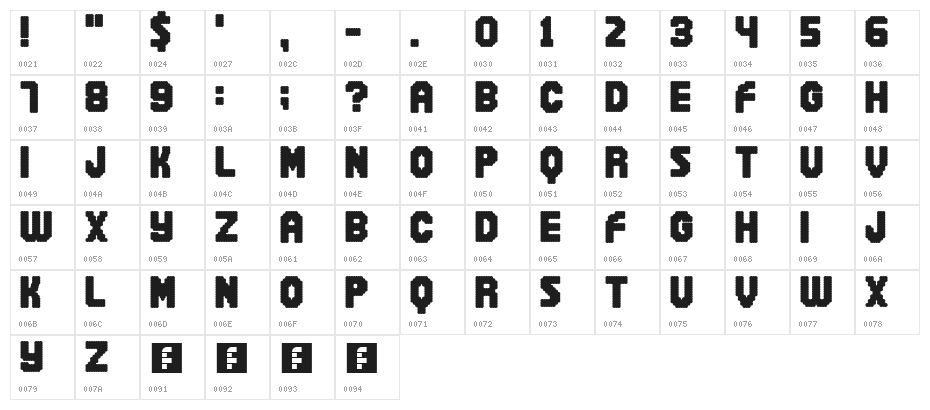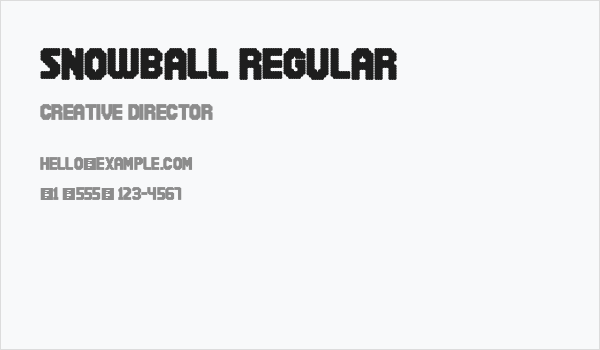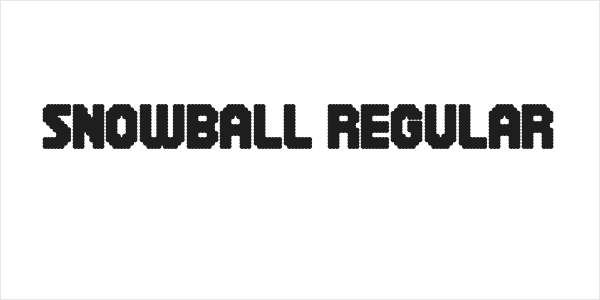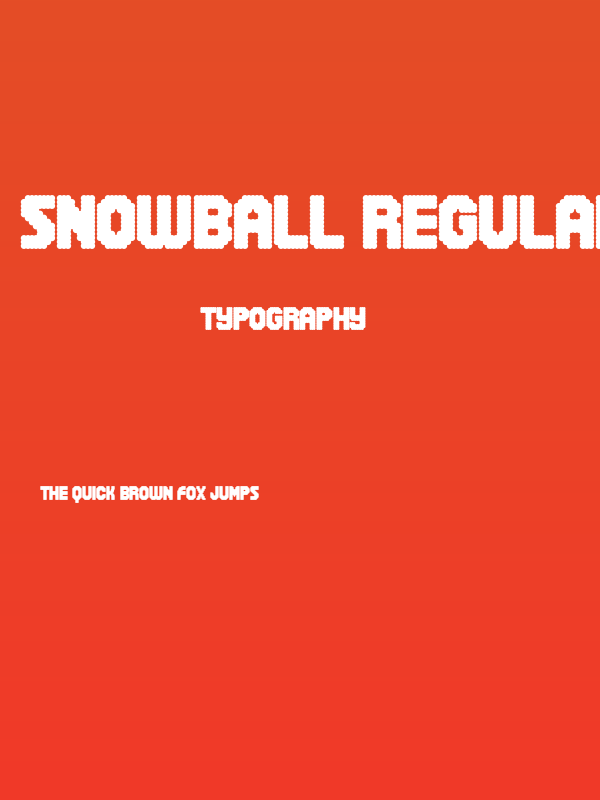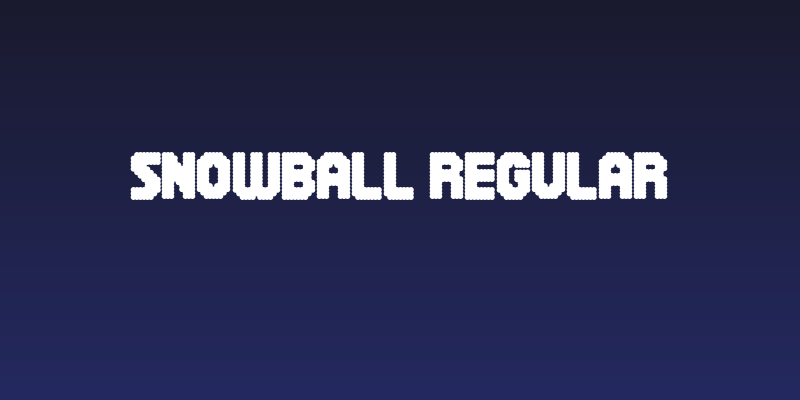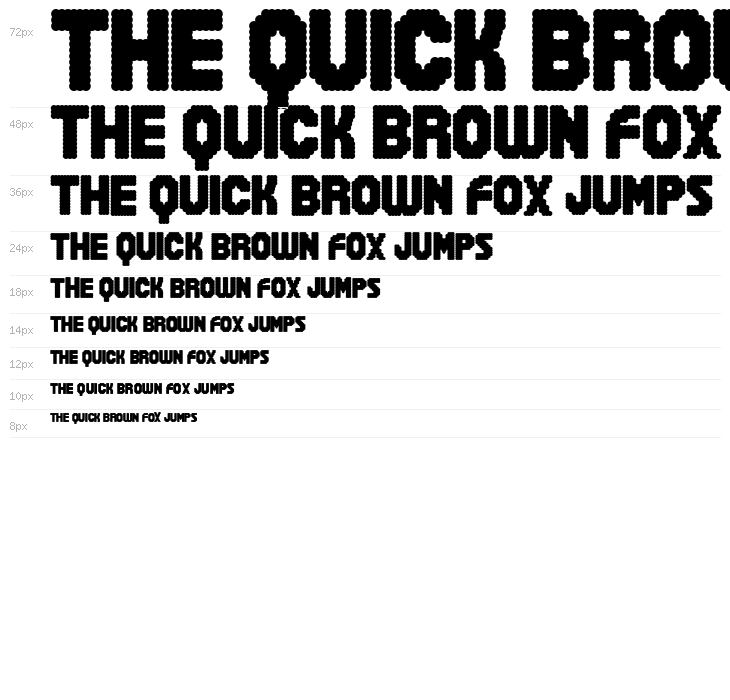
Snowball Regular Font
Snowball Regular Description
This playful and bold font features a unique, bubbly texture that resembles snowballs or fluffy clouds. Each character is crafted with rounded edges and a consistent thickness, giving it a cohesive and friendly appearance. The uppercase and lowercase letters maintain a uniform style, while the numbers and special characters complement the overall design. The font's distinct style makes it ideal for projects that require a fun and approachable aesthetic, such as children's books, holiday-themed materials, or playful branding.
| Overall Style | Playful, Fun |
| Proposed Projects | Ideal for children's books, holiday-themed materials, playful branding, and invitations. |